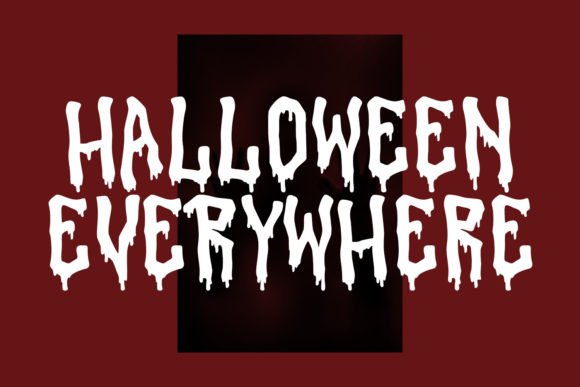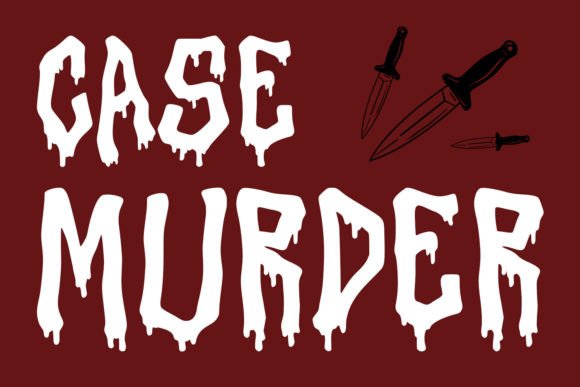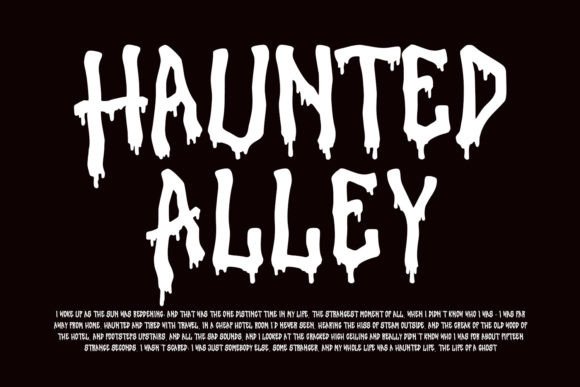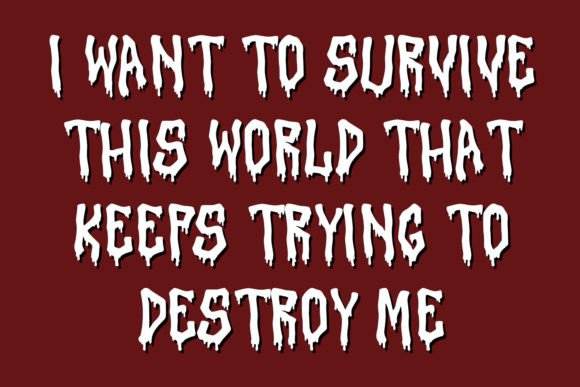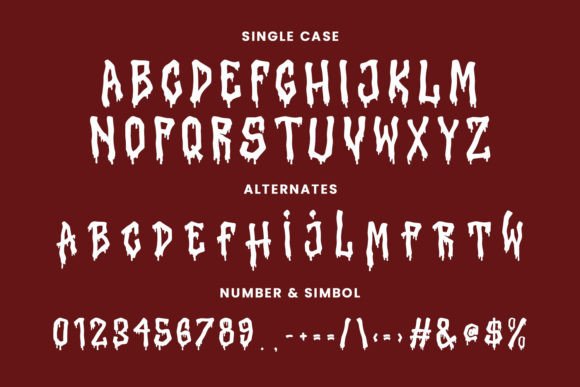
Unleash Your Creativity with Embar Wisteh: The Horror Dripping Font
Are you a designer, craftsperson, or simply a creative enthusiast looking for a unique font to add a touch of horror and excitement to your projects? Look no further than Embar Wisteh, the horror dripping font that’s taking the design world by storm. With its bold strokes, fun character, and versatile features, Embar Wisteh is the perfect choice for a wide range of creative endeavors.
What Makes Embar Wisteh Stand Out?
Embar Wisteh is not just another font; it’s an experience. Its horror dripping style is sure to grab attention and leave a lasting impression on your audience. The font’s bold strokes and fun character give it a playful yet eerie feel, making it ideal for projects that require a bit of edge. Additionally, Embar Wisteh comes with ligatures and alternates, providing you with extra creative freedom to experiment with different styles and effects.
Multilingual Support for Global Creations
In today’s interconnected world, creativity knows no borders. That’s why Embar Wisteh offers multilingual support for over 100 languages, making it a fantastic choice for designers and crafters who work on projects for a global audience. Whether you’re creating a logo, social media content, movie titles, or book titles, Embar Wisteh ensures that your message can be conveyed in any language.
Perfect for Various Creative Projects
Embar Wisteh’s versatility is one of its strongest assets. This font is suitable for a wide range of projects, including:
- Logo Design: Create memorable and impactful logos that stand out from the crowd.
- Social Media: Elevate your social media presence with eye-catching posts and stories.
- Movie and Book Titles: Add a touch of horror and intrigue to your movie and book titles.
- Short and Long Text: Whether you’re working with a short phrase or a lengthy paragraph, Embar Wisteh remains legible and engaging.
- Secondary Text Font: Pair Embar Wisteh with script or serif fonts for a stunning contrast that adds depth to your designs.
Tips for Working with Embar Wisteh
To make the most of Embar Wisteh, consider the following tips:
- Experiment with Ligatures and Alternates: Don’t be afraid to try out different ligatures and alternates to find the perfect fit for your project.
- Mix and Match with Other Fonts: Combine Embar Wisteh with other fonts to create a unique visual identity.
- Play with Colors and Effects: Enhance the horror dripping effect with creative color schemes and text effects.
Embar Wisteh is more than just a font; it’s a creative tool that can elevate your designs to new heights. With its bold and fun character, multilingual support, and versatility, Embar Wisteh is perfect for designers and crafters looking to add a touch of horror and excitement to their projects. So why wait? Unleash your creativity with Embar Wisteh and make stunning works that leave a lasting impression.